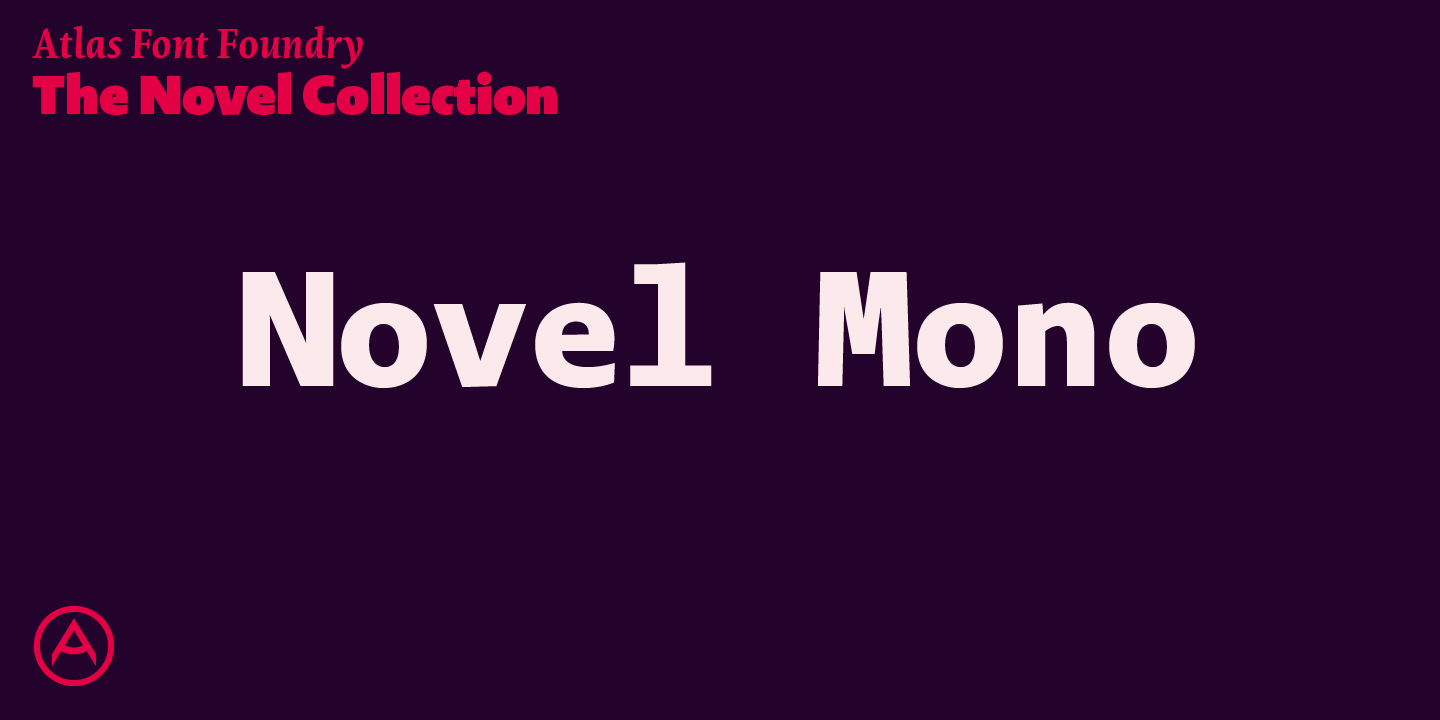
Novel Mono Pro Font is perfect for programming environments, code editors, terminal applications, technical documentation, data tables, spreadsheet displays, financial reports, software development interfaces, command line interfaces, and developer documentation. This professional monospaced typeface excels in applications where character alignment, coding precision, and technical readability need to be communicated with exceptional clarity and programming functionality.
Novel Mono Pro Font is exciting because it represents the evolution of monospaced typography, combining traditional coding font reliability with contemporary design refinement. Its meticulously crafted character spacing and optimized glyph design ensure perfect alignment in programming environments while maintaining superior readability across extended coding sessions. The font's distinctive technical proportions and advanced OpenType features make it particularly compelling for developers seeking to communicate professionalism, precision, and coding expertise in their technical documentation and software interfaces.
The Novel Mono Pro Font family includes comprehensive weight options: Light, Regular, Medium, Bold, and Black, along with their corresponding italic variants that maintain consistent monospaced width while offering complete typographic flexibility. Each weight preserves the characteristic fixed-width spacing while providing different levels of visual emphasis, giving developers complete control over code hierarchy and technical documentation systems.
For developers creating technical projects or programming-focused materials, Novel Mono Pro Font Free Download offers exceptional coding performance with professional design quality. Whether you're developing integrated development environments, technical manuals, or programming education content, this sophisticated typeface provides the perfect foundation for conveying technical precision and coding professionalism. The font's extensive character set includes programming symbols and advanced OpenType features that enhance software development applications and technical communication requirements.